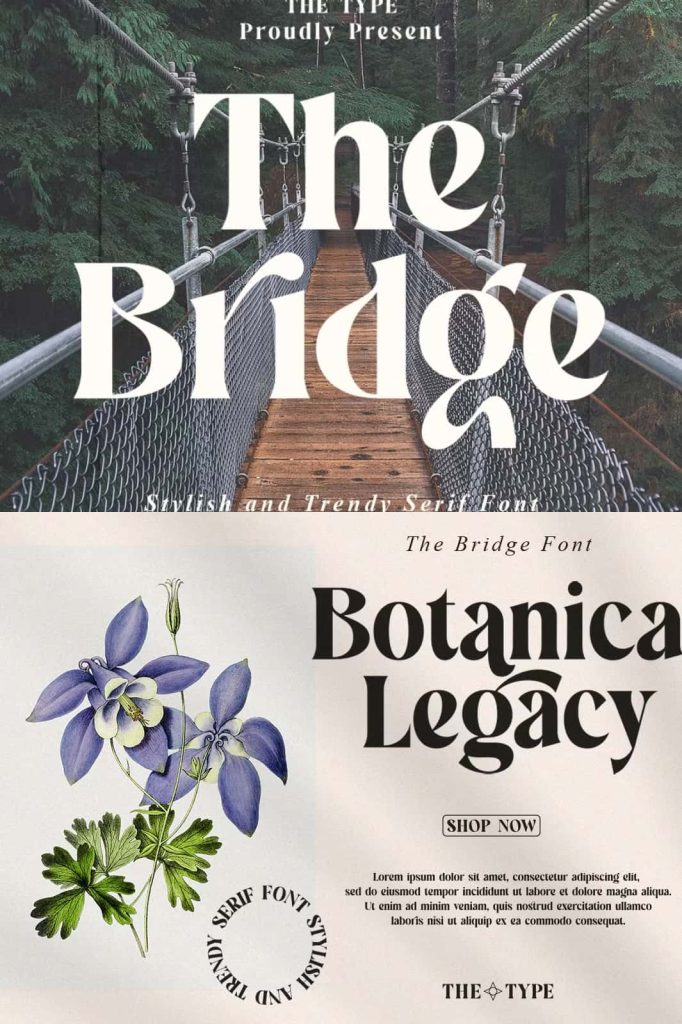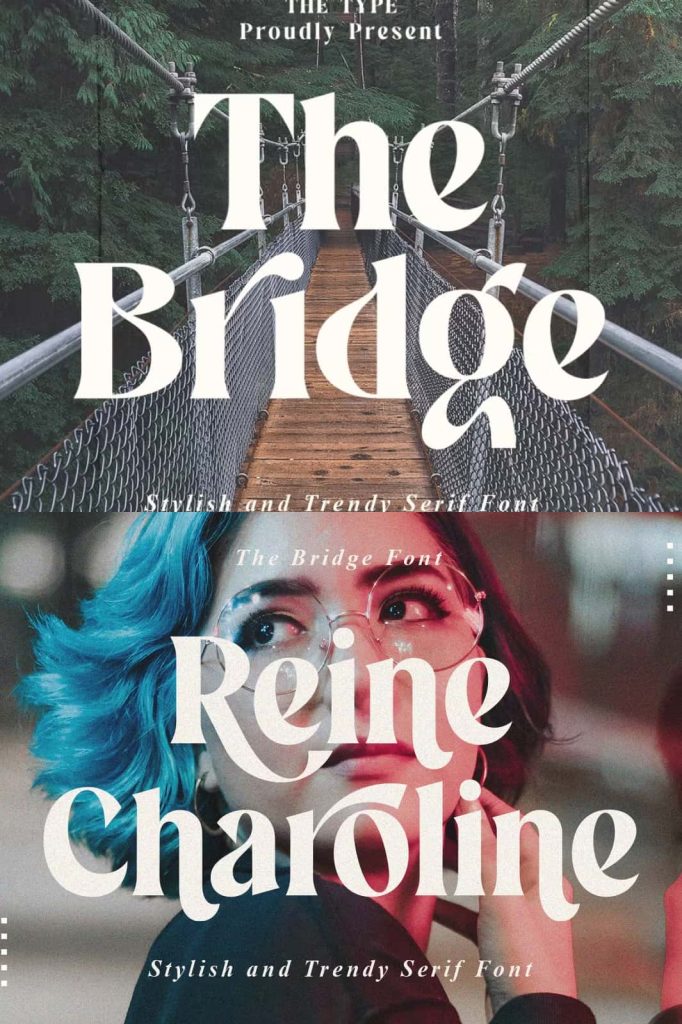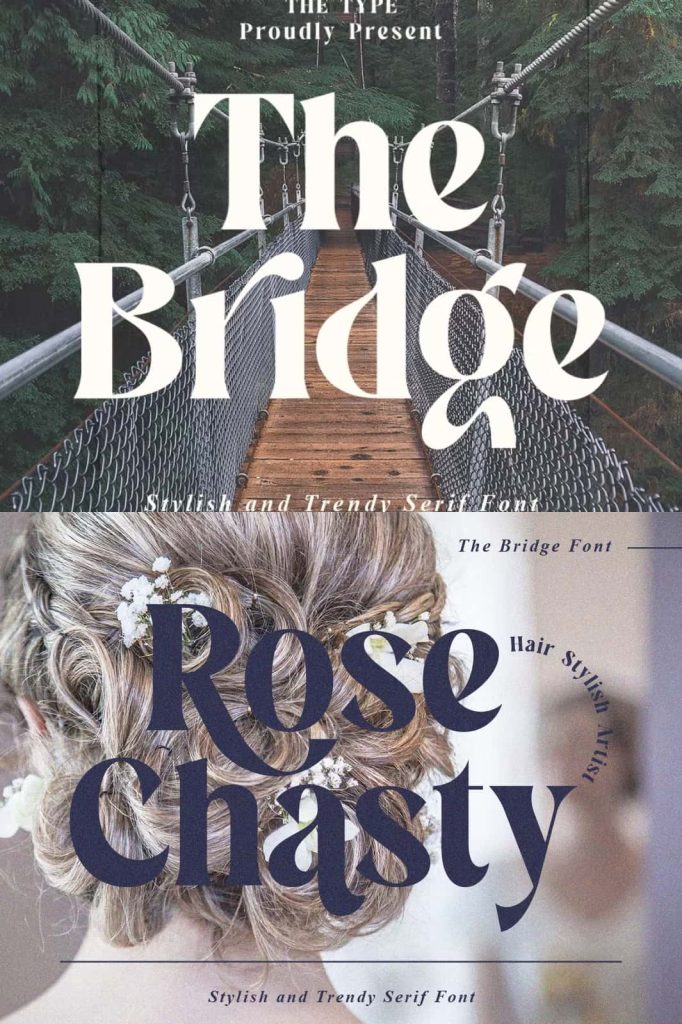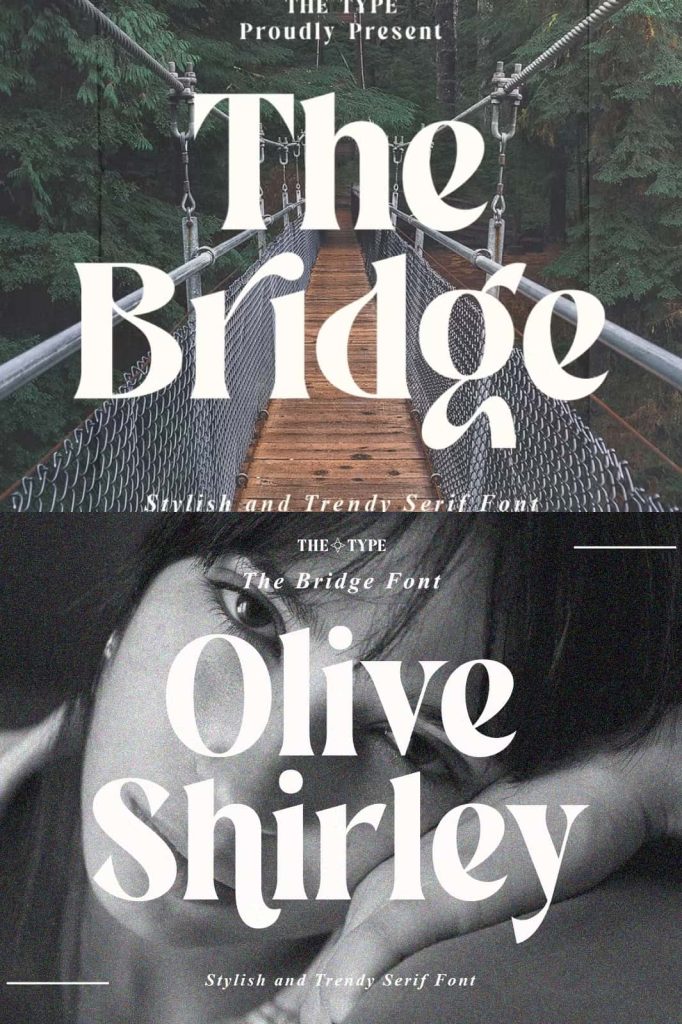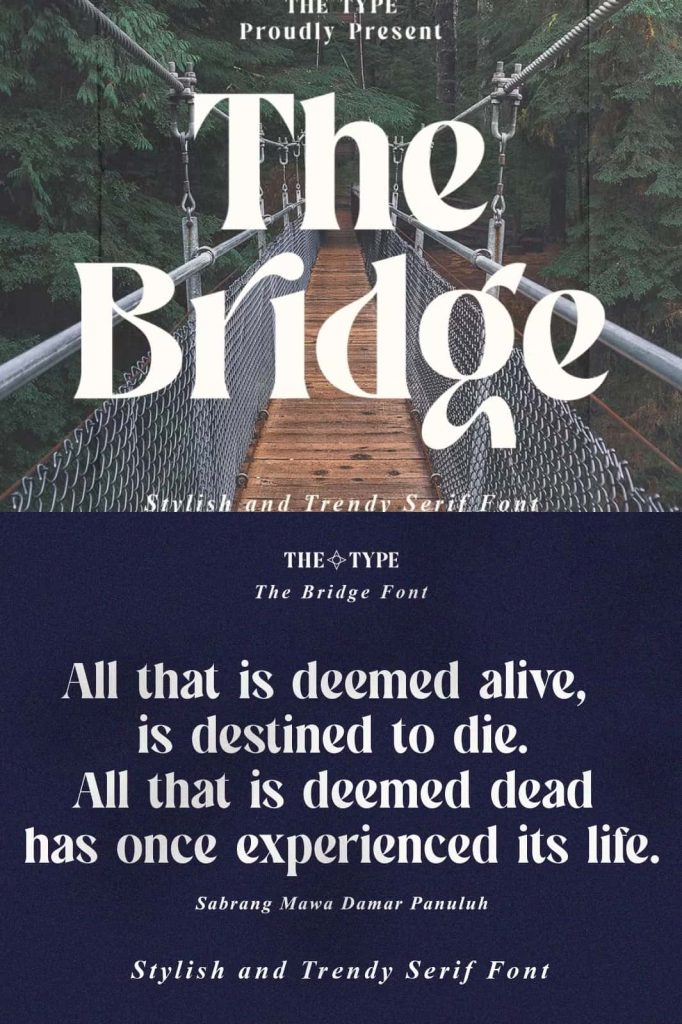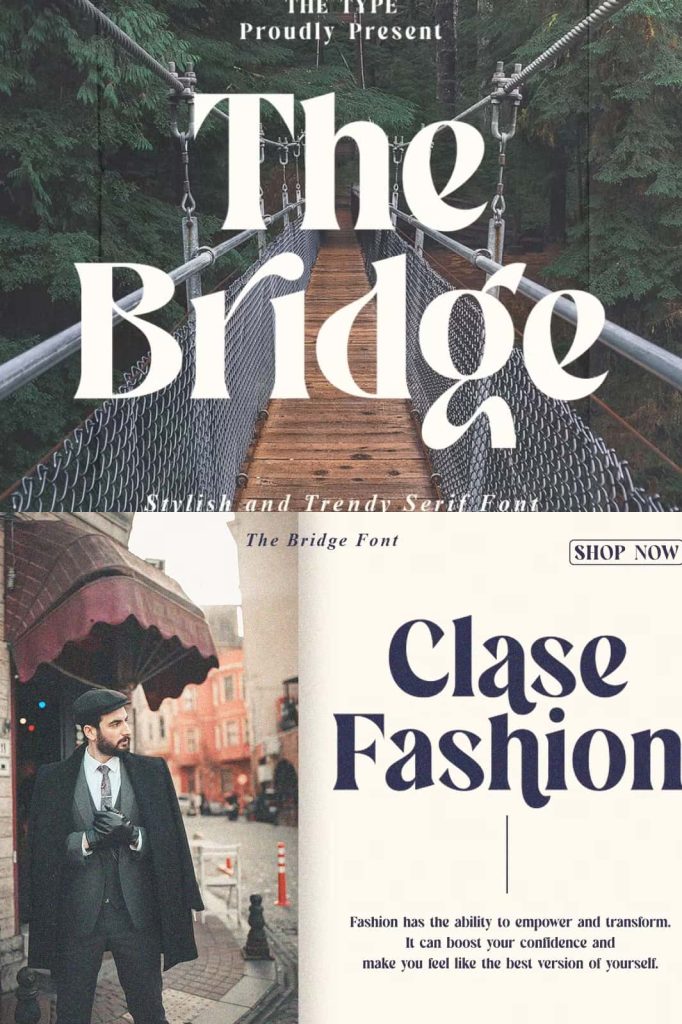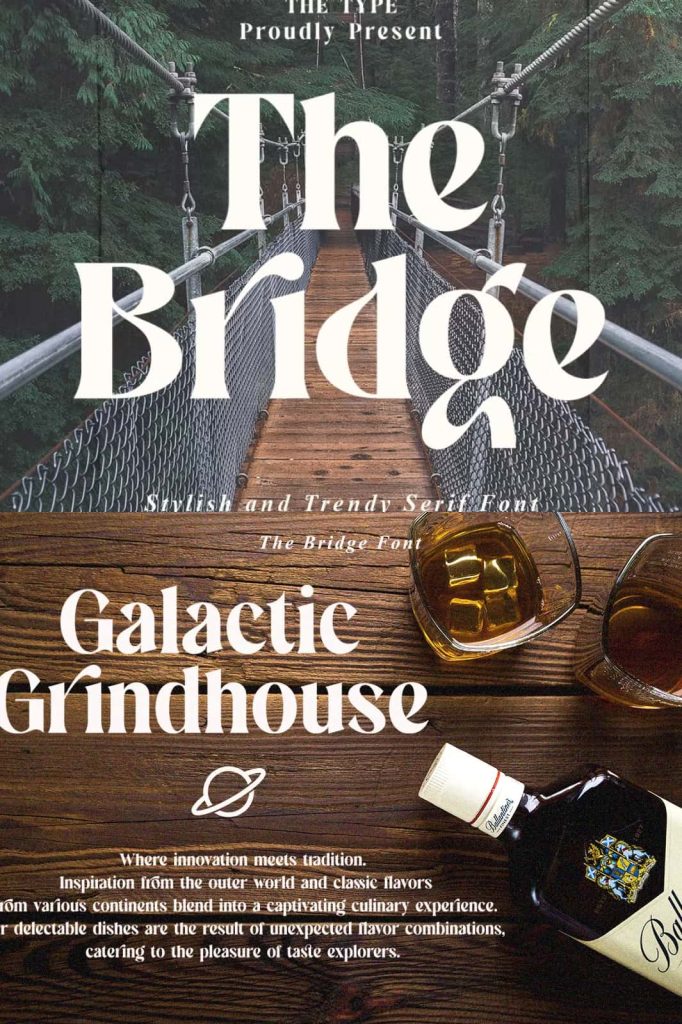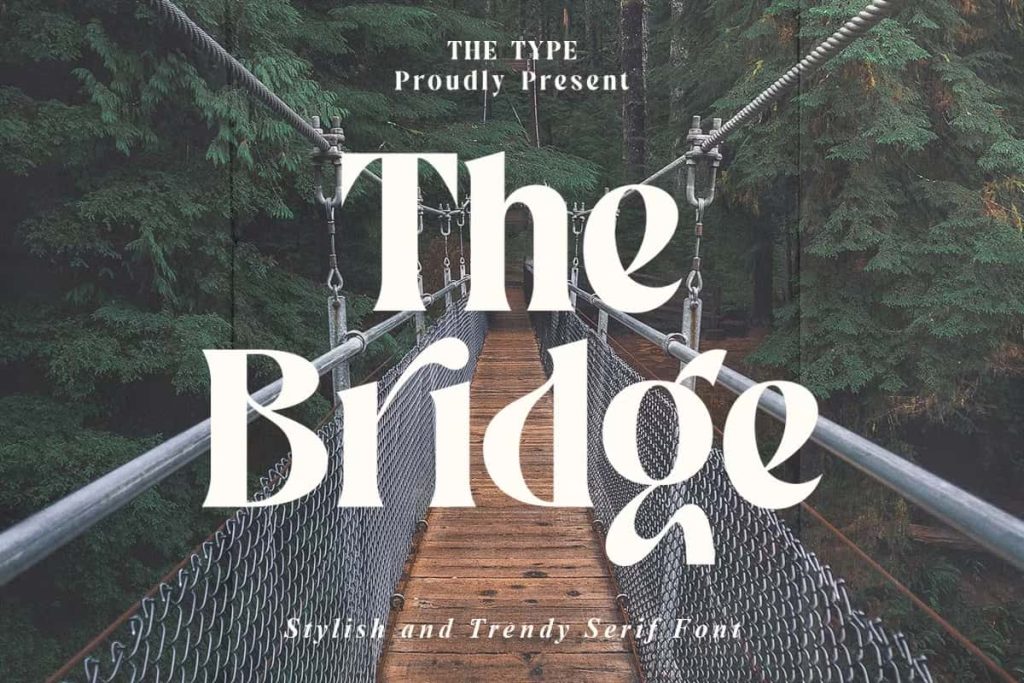
The Bridge | Stylish Trendy Serif
The Bridge – a modern serif font Inspired by Stylish Trendy Serif. This font can look more classic (conservative) serif, which is perfect for texts.